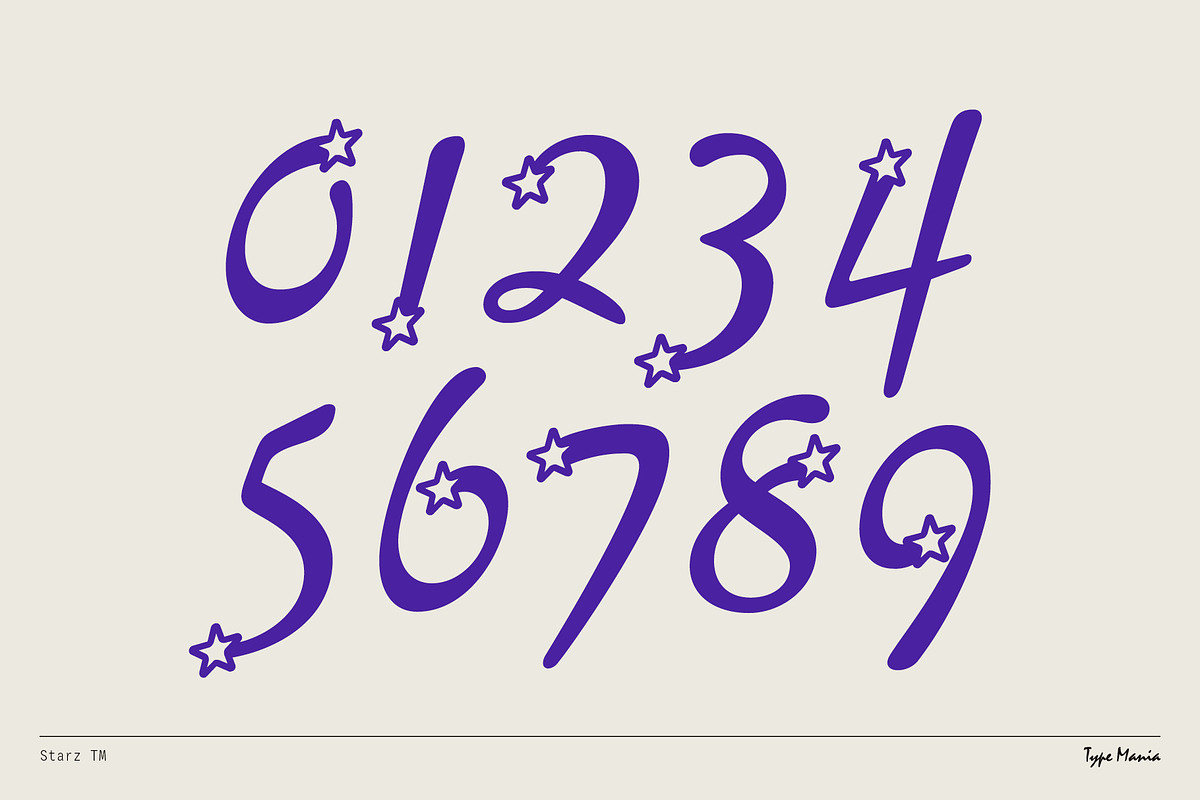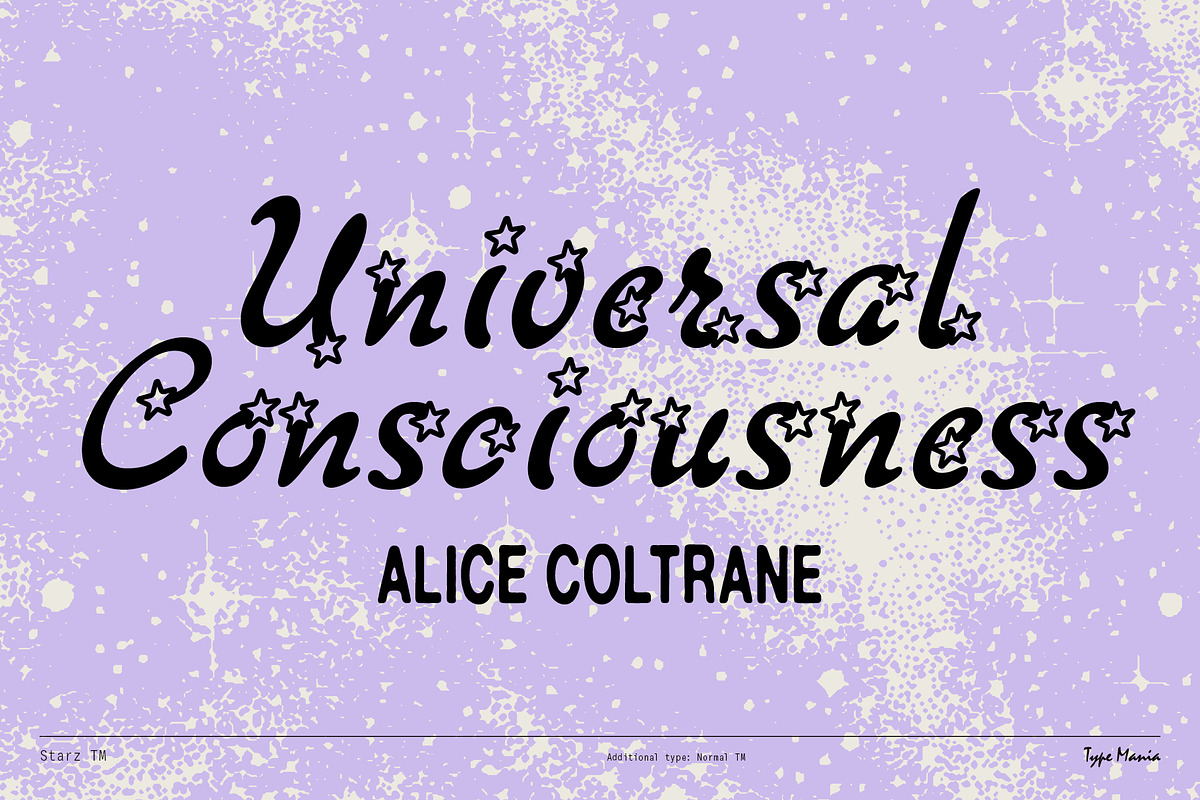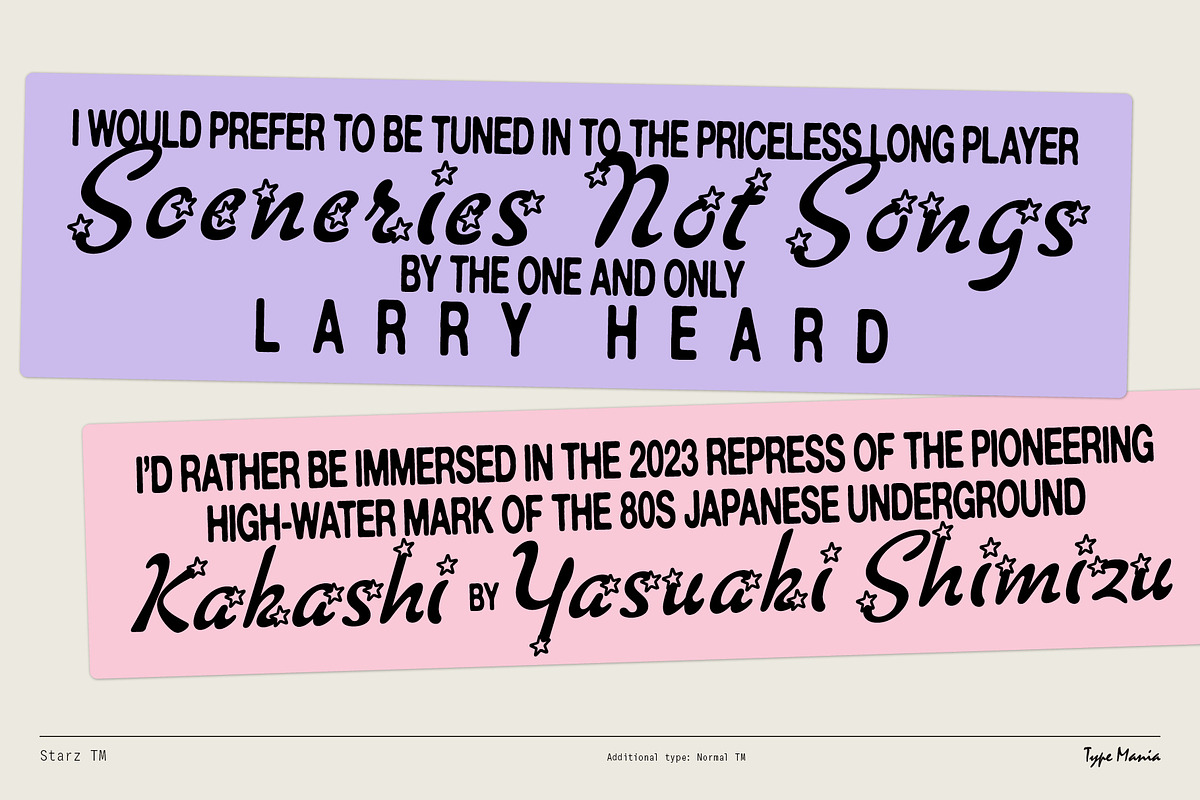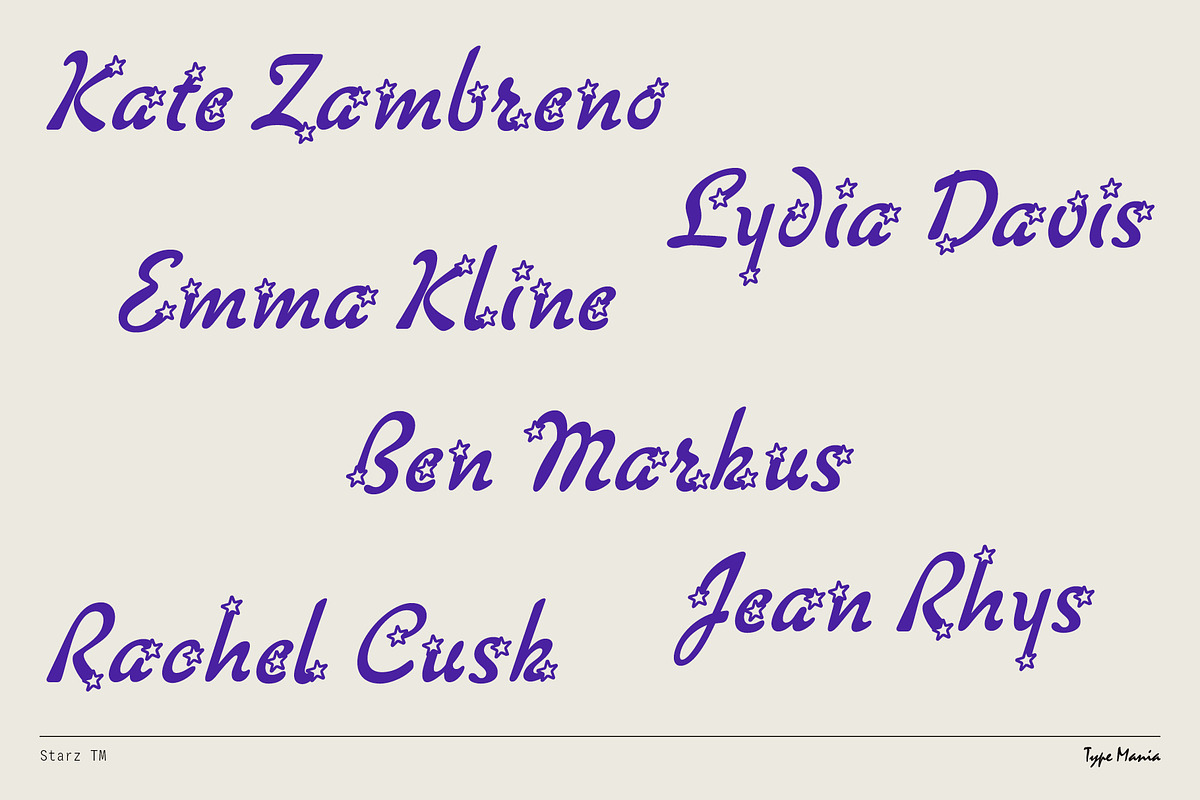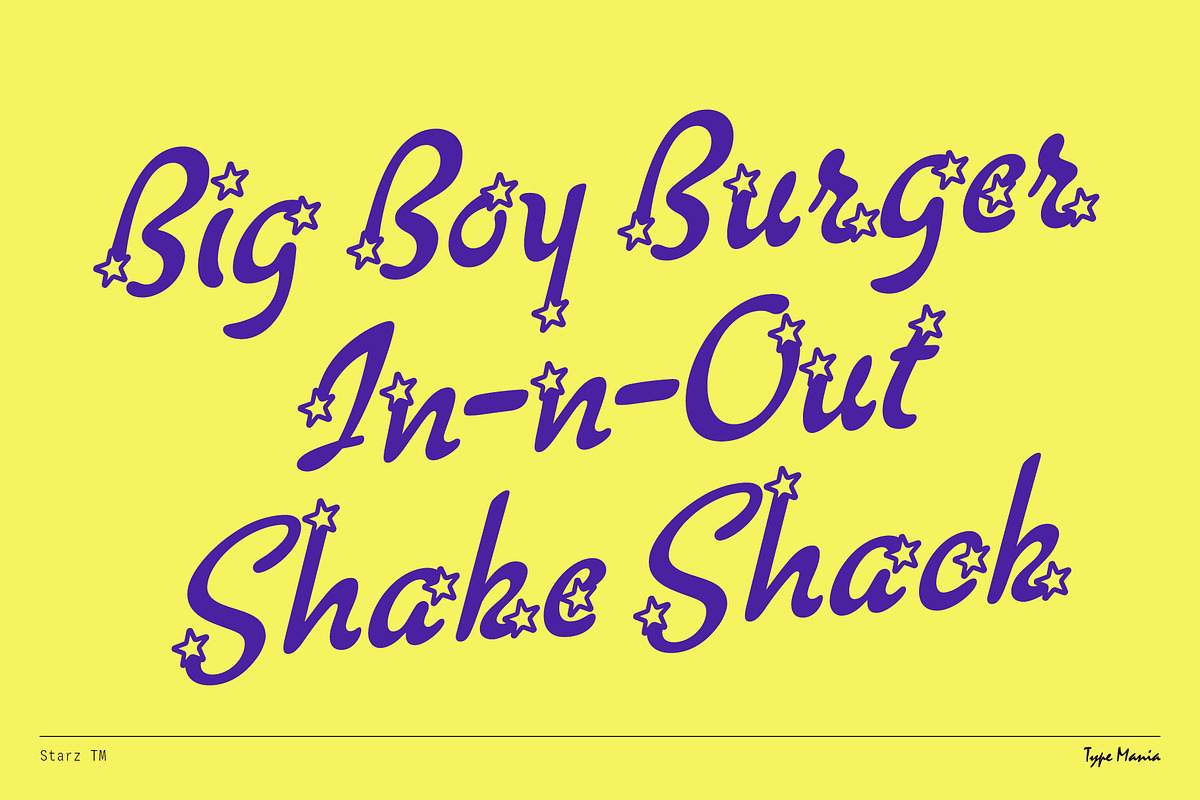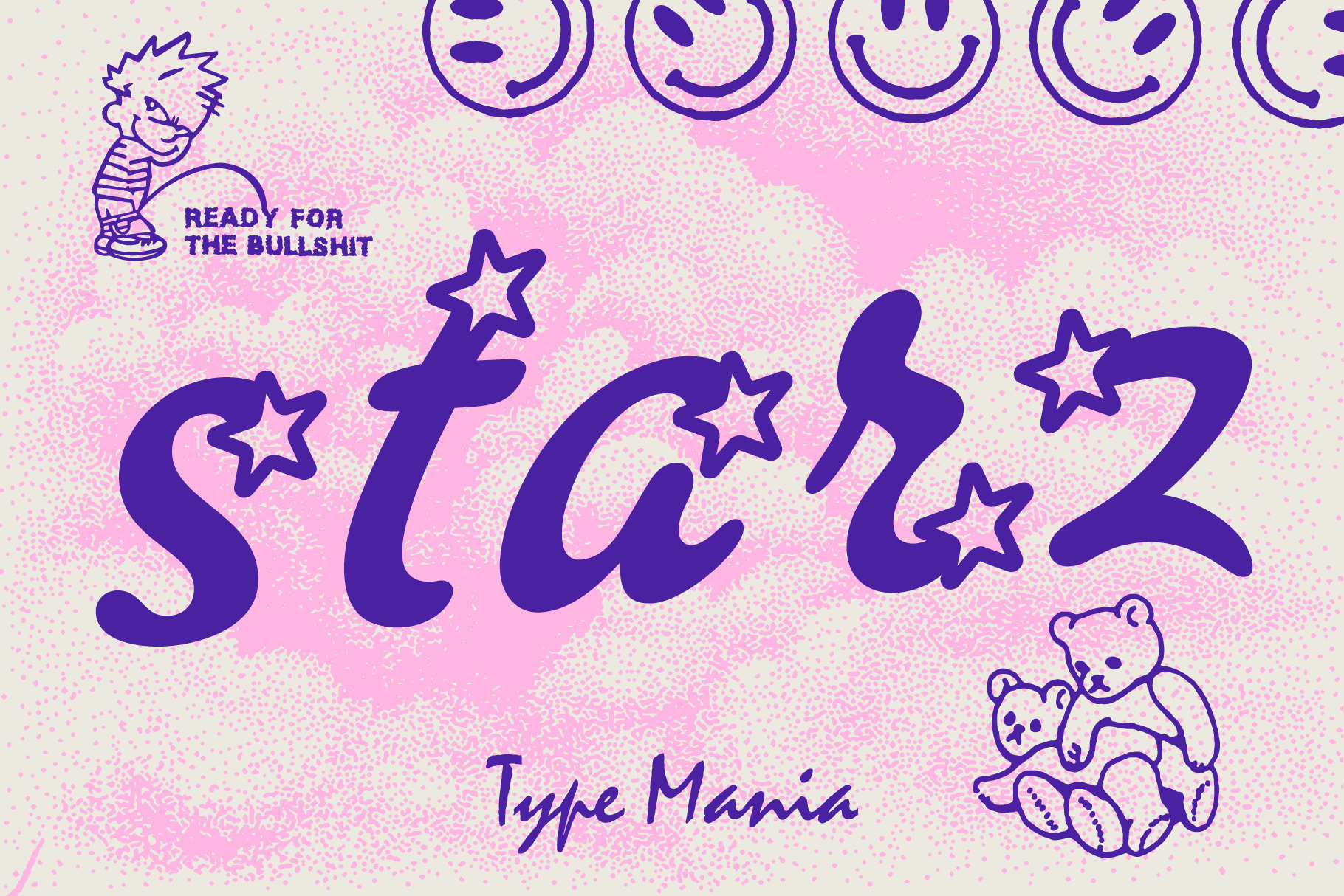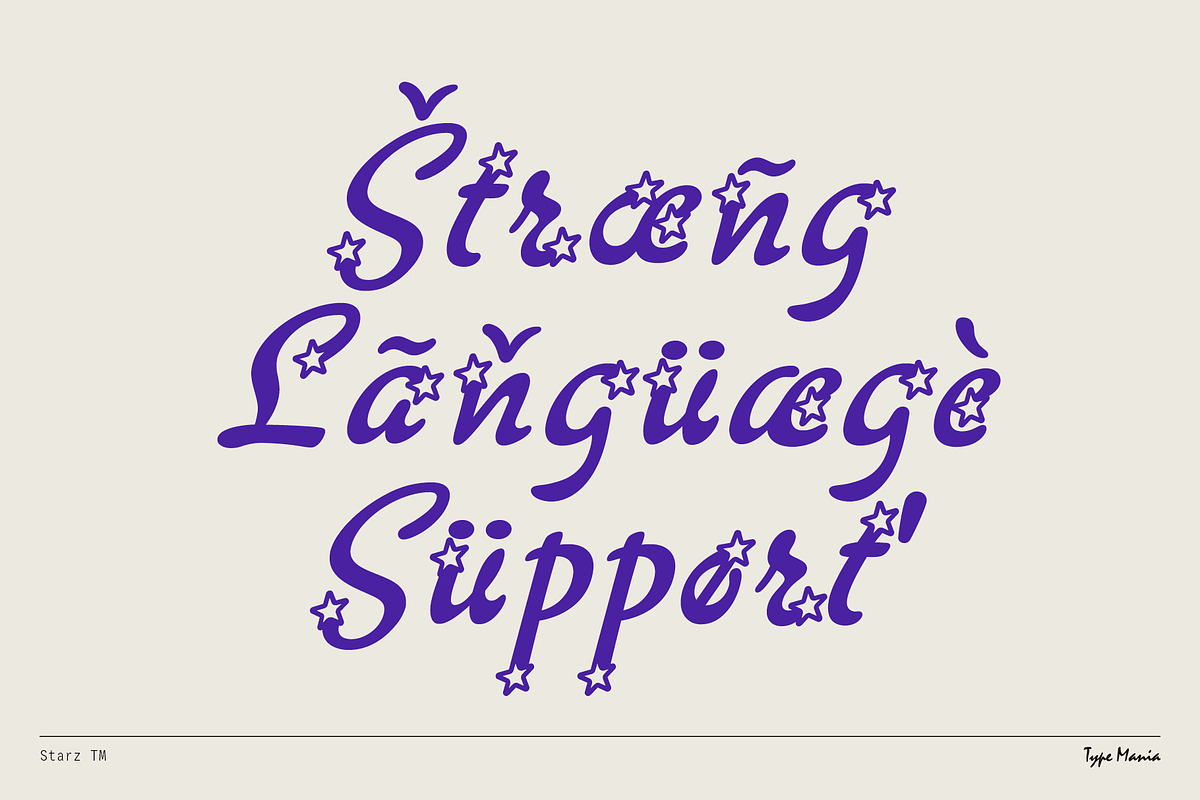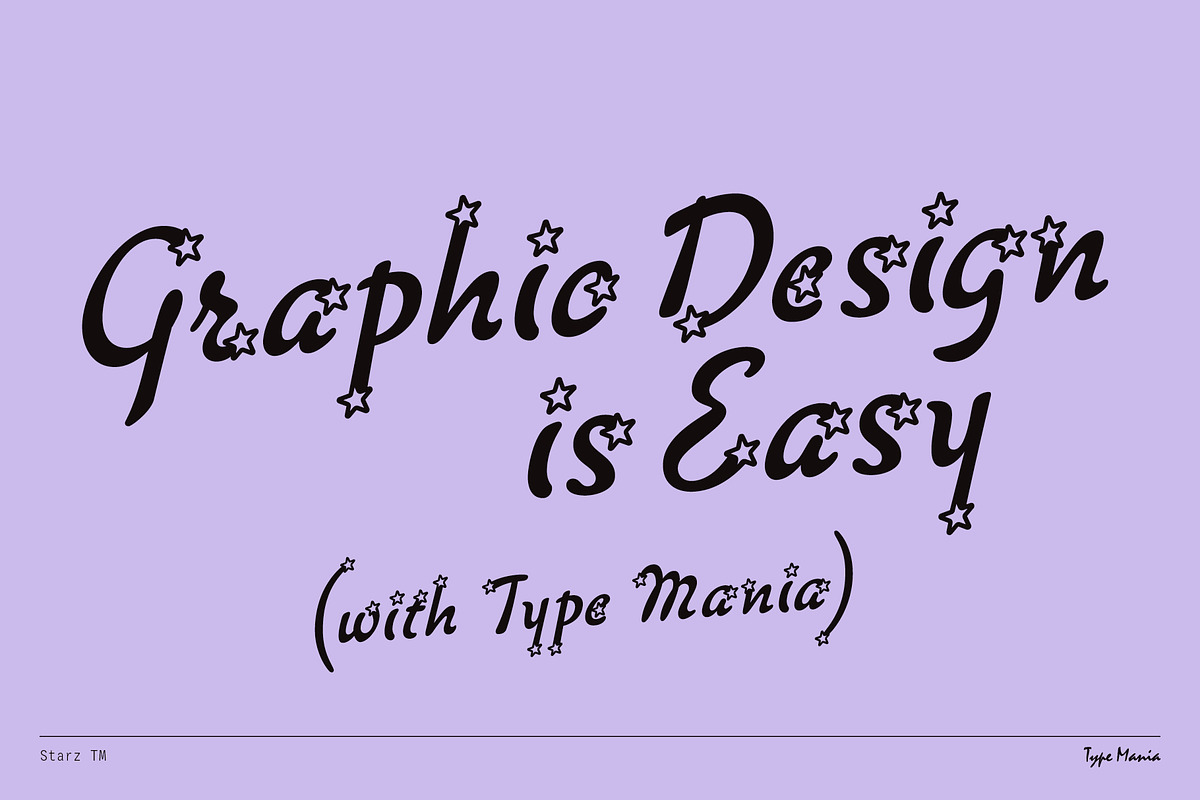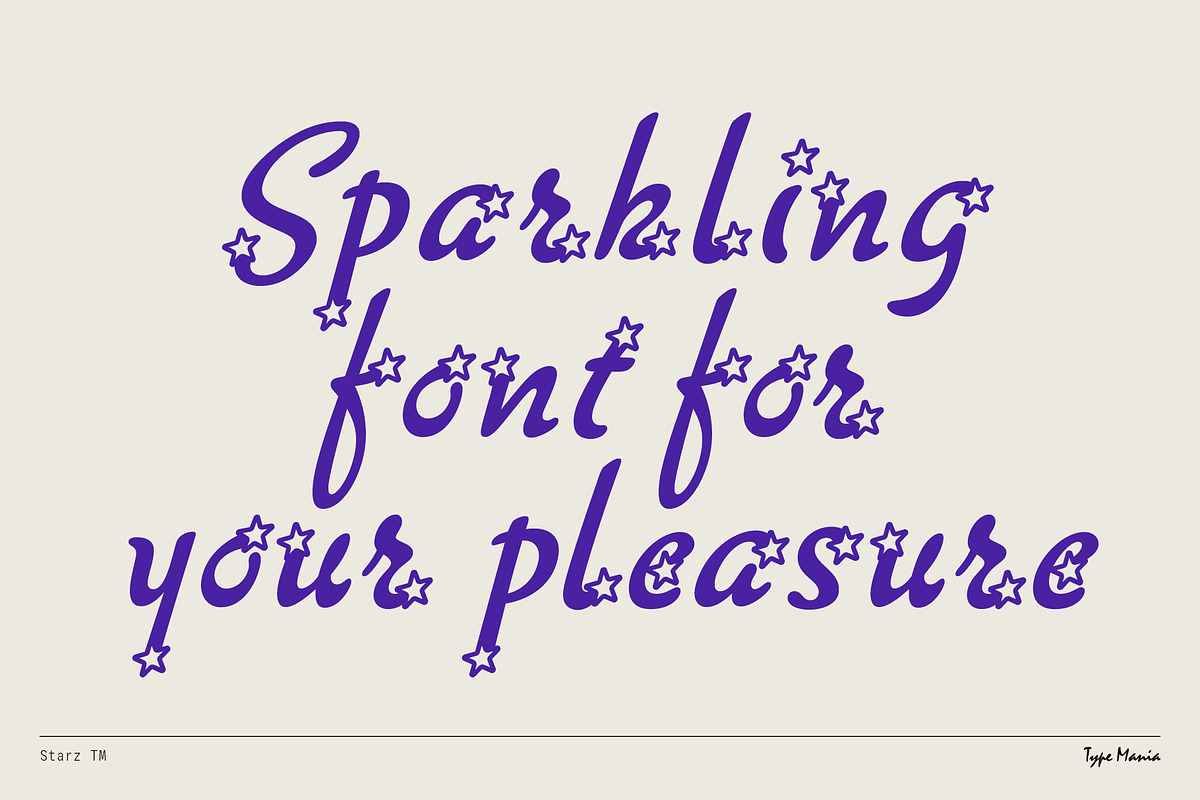
Starz TM – Sparkle Font
Starz TM – a loose cursive with baked-in sparkle. Good for posters, club flyers, merchandise... anything that benefits from a little ✨glow✨